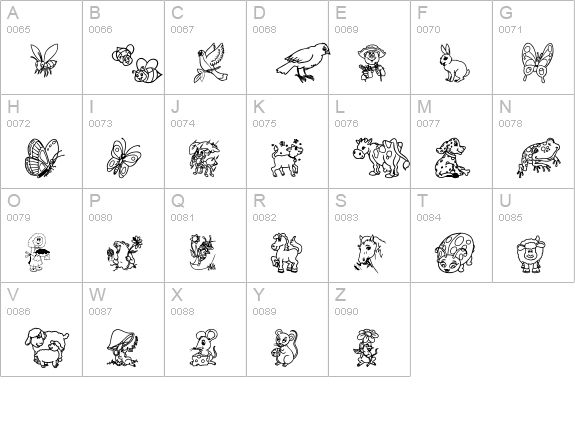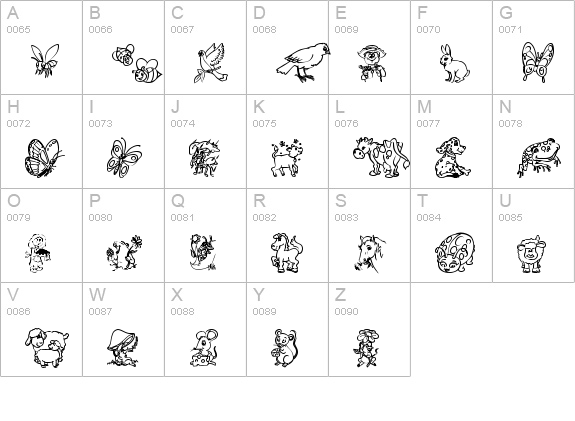
Critters1DC SemiBold Font Details
Critters1DC SemiBold is a sub-bold, structured variant in the Critters1DC typeface family \xE2\x80\x94 well suited to sub-headlines and emphasised passages.
Critters1DC SemiBold is a versatile and modern typeface that strikes the perfect balance between playfulness and professionalism. With its bold weight and distinctive characters, this font is ideal for making a statement in various design projects. Whether you're creating eye-catching headlines or designing attention-grabbing branding materials, Critters1DC SemiBold is sure to stand out. This font features a unique blend of quirky details and clean lines, making it a great choice for both digital and print applications. Its semi-bold weight provides just the right amount of emphasis without being too overpowering, making it suitable for a wide range of design needs. From posters and flyers to websites and social media graphics, Critters1DC SemiBold offers a bold and dynamic look that is sure to make an impact. Best of all, Critters1DC SemiBold is available for free download at FontsMarket.com. Now you can add this stylish and versatile font to your collection without breaking the bank. Don't miss out on the opportunity to enhance your designs with the bold and playful charm of Critters1DC SemiBold. Download it today and unleash your creativity!